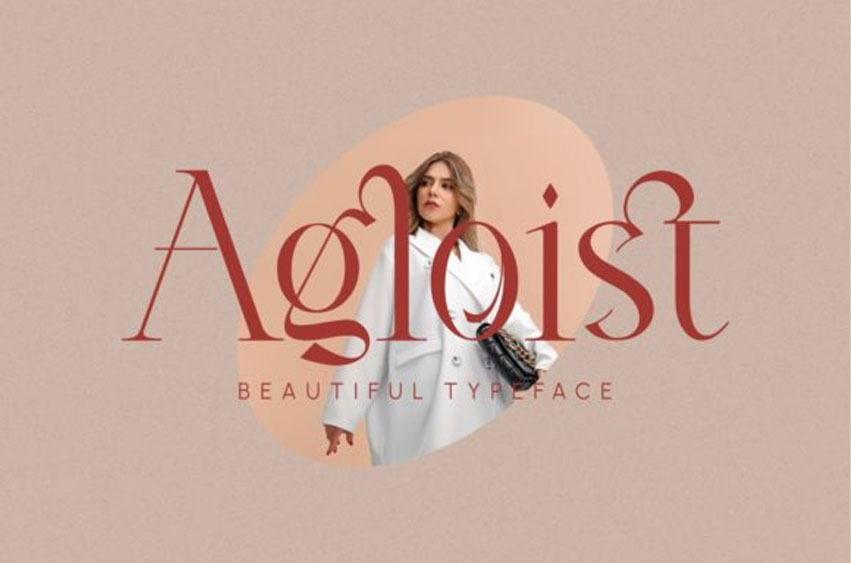
Agloist Font
Agloist Font is an elegant and delicate serif font. It is PUA encoded, which means you can access all of the glyphs and swashes with ease!
Fall in love with its incredibly versatile style and use it to create spectacular designs!